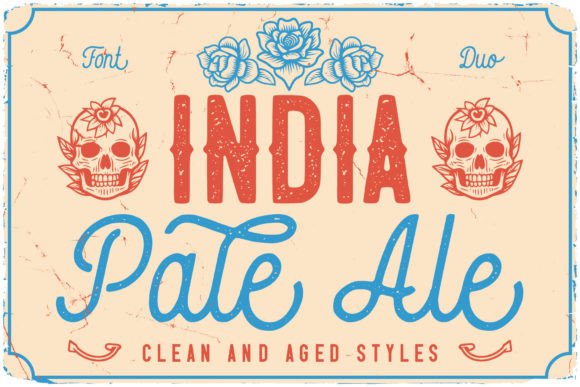
Looking to elevate your web advertising game? Look no further than India Pale Ale Font. Created by Vozzy Vintage Fonts And Graphics, this display font family is the ultimate choice for captivating and eye-catching designs.
With its vintage label font duo, India Pale Ale Font brings a touch of nostalgia and sophistication to any project. The two fonts included in this collection, Bold and Script, offer a wide range of creative possibilities.
The Bold font exudes strength and boldness, making it perfect for headlines and attention-grabbing banners. Its Clean style adds a modern twist to vintage designs, while the Aged style adds a rustic and weathered look. Whatever style you choose, this font will make a statement and leave a lasting impression.
The Script font, on the other hand, adds elegance and charm to your designs. With its abundance of stylistic alternates and ligatures, you can easily create unique and personalized typography. Whether you're designing a logo, a poster, a T-shirt, or a label, the possibilities are endless with India Pale Ale Font.
What sets this font apart is its incredible attention to detail. The additional characters and multilingual support ensure that you can effortlessly communicate your message to a global audience. No matter the language, India Pale Ale Font has got you covered.